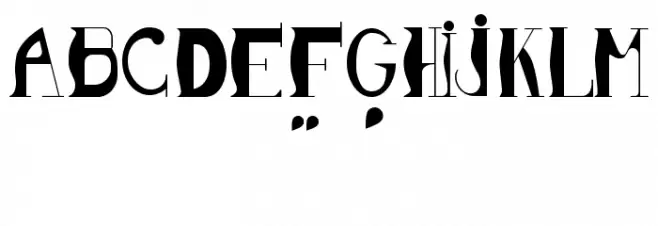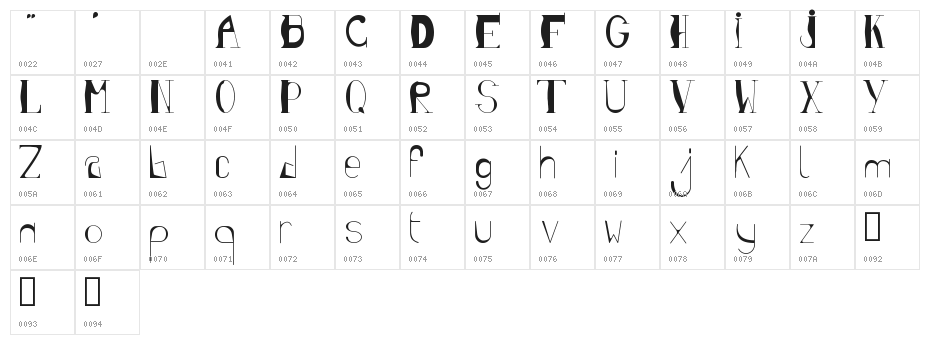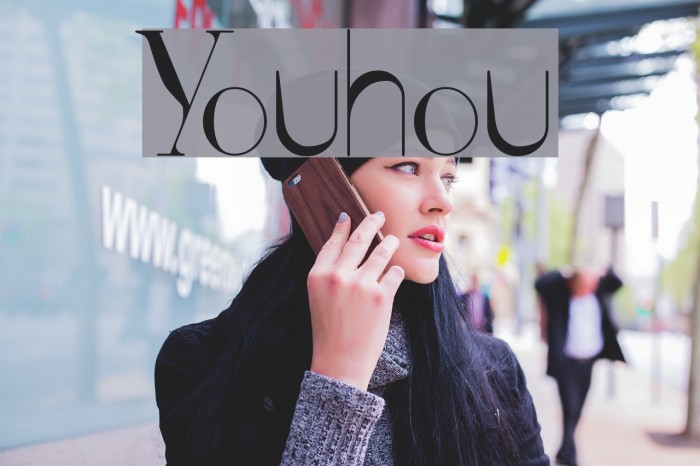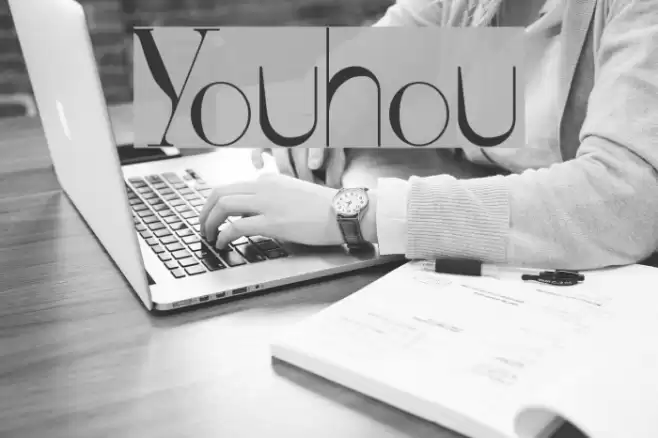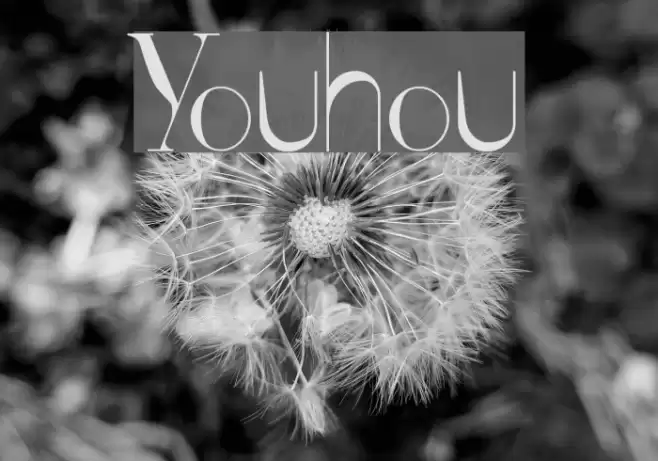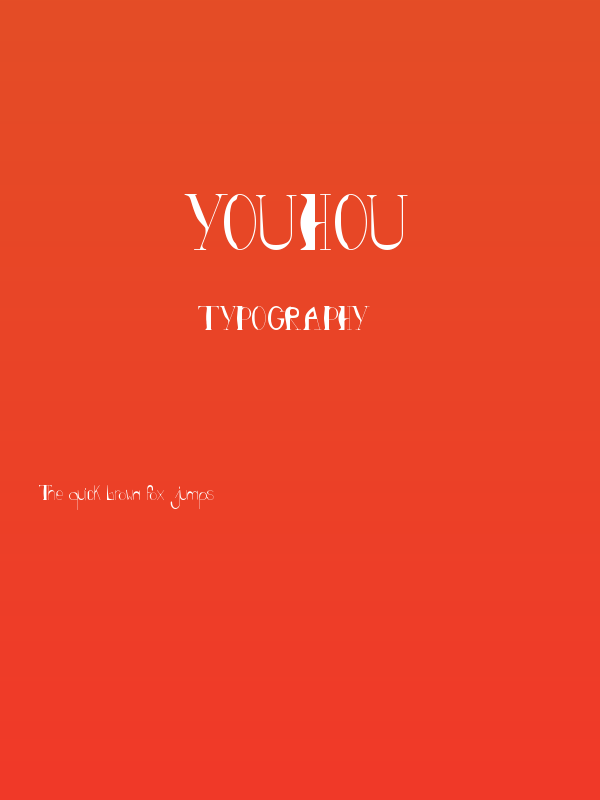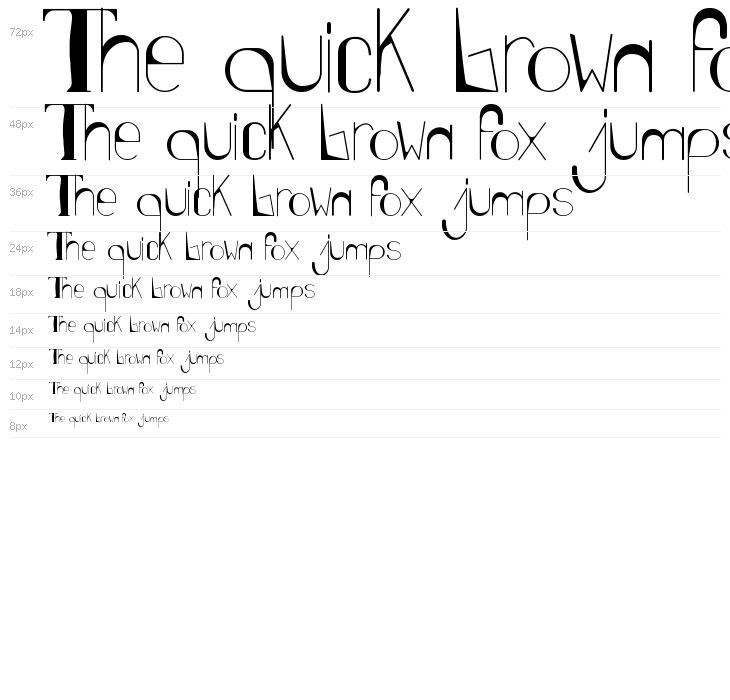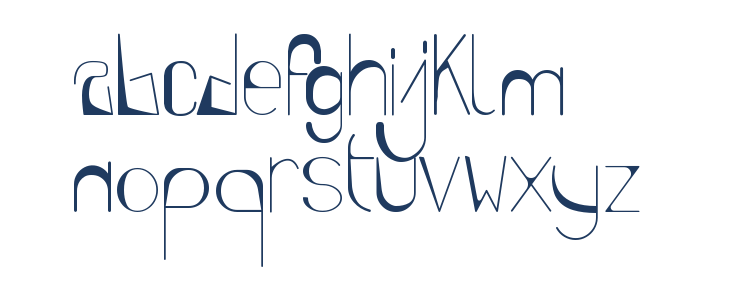
Youhou Font
Youhou Description
This font is a striking blend of bold and thin strokes, creating a dynamic and artistic appearance. The uppercase letters feature a mix of solid, bold lines and delicate, thin strokes, giving each character a unique and eye-catching look. The lowercase letters continue this theme with a more fluid and whimsical style, adding a playful touch. The numerals and special characters maintain the same artistic flair, ensuring consistency throughout the font. This font's distinctive style makes it ideal for creative and expressive projects.
| Use Case | Headlines, Logos, Artistic projects |
| Proposed Projects | Ideal for artistic posters, creative branding, unique invitations, and expressive headlines. |